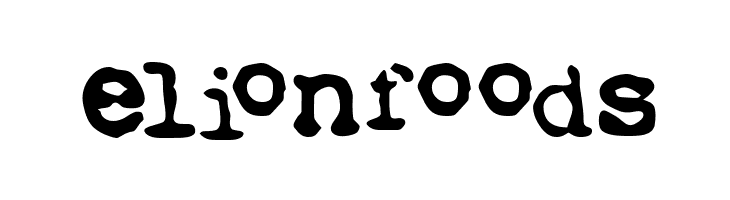
Metroid Prime: Hunters TTF Font
A pixelated, monospaced font with a retro gaming vibe.
lemon squeezy Font
Font by Lindsay Tatman
A playful, bold handwritten font with a casual and lively style.
Lindsay Creepy Font
A spooky, cobweb-themed font with a hand-drawn, eerie appearance.
Xtctype Font
A playful, hand-drawn font with bold, irregular strokes and whimsical curves.
my font isnt funky enough Font
Font by Lindsay Tatman
A playful, hand-drawn font with a whimsical and casual style.
Elbow-Profilactic Font
Elbow - www.elbow.com/fonts
A bold, three-dimensional font with a vintage, shadowed style.
Elbow-xtctype-Heavy Font
Elbow - www.elbow.com/fonts
A bold, playful font with a hand-drawn, vintage-inspired style.
Elbow-xtctype-Light Font
Elbow - www.elbow.com/fonts
A distressed, grunge-style font with irregular edges and a worn-out look.
LindsayBrownDEMO Font
A bold, brush-style handwritten font with dynamic strokes.
Elbow-AnglicanPaper Font
Elbow - www.elbow.com/fonts
A dot matrix style font with a retro, tech-inspired aesthetic.
Elbow-SaulWeintraub Font
Elbow - www.elbow.com/fonts
A distressed, textured font with a vintage and rugged appearance.